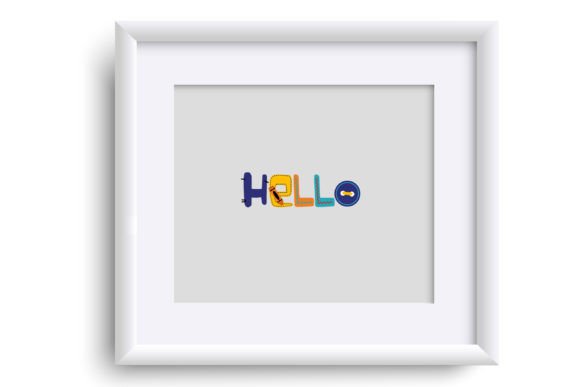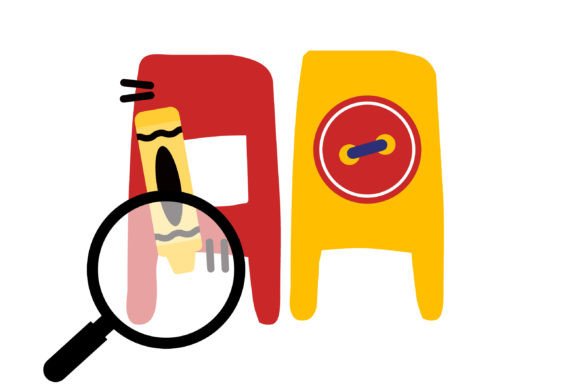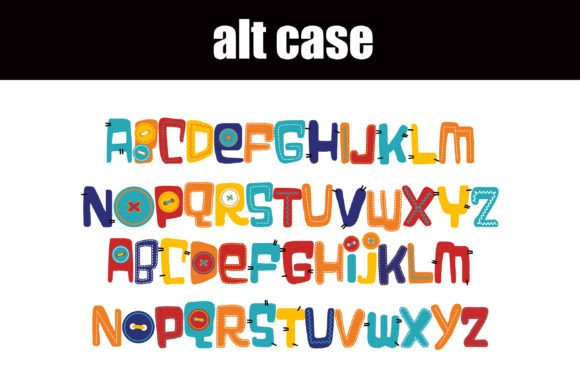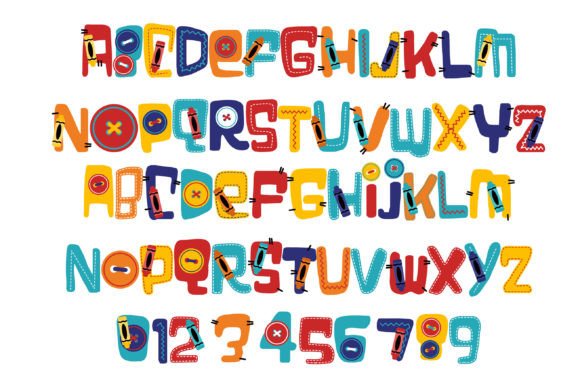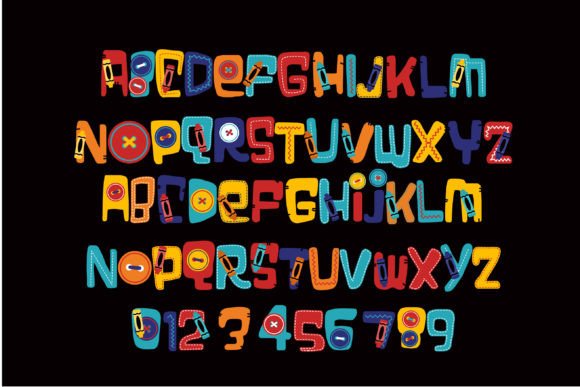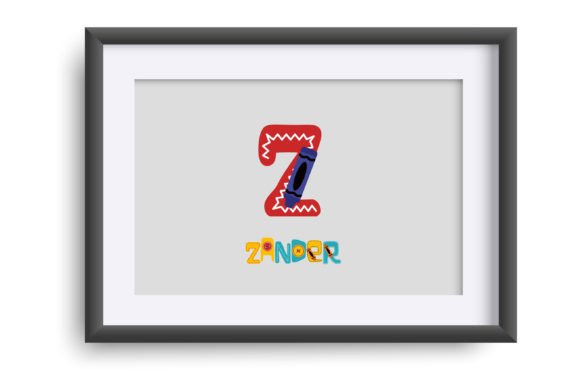
Introduction to Sew Ready 4 School Font
Remember the excitement of rummaging through your crayon box, searching for the perfect shade to bring your creative project to life? As designers, we’re always on the lookout for unique and high-quality design resources to elevate our work. That’s where the Sew Ready 4 School Font comes in – a vibrant, full-color font that’s perfect for adding a playful touch to your titles, displays, and posters.
With its crafty design featuring crayons, buttons, and stitches throughout, this font is sure to bring a smile to the faces of both kids and adults alike. And the best part? It’s easy to use, with an alt case that provides additional colors accessible through your system’s character map. Whether you’re working on a free download or a paid project, the Sew Ready 4 School Font is a valuable addition to any designer’s toolkit.
Key Features of Sew Ready 4 School Font
- Unique Hand-Drawn Design: This font features a distinctive hand-drawn design, perfect for adding a personal touch to your creative project.
- Perfect for Educational Projects: Designed specifically for back-to-school and educational themes, this font is ideal for creating engaging and informative materials.
Honest Review: Sew Ready 4 School Font
I recently stumbled upon the Sew Ready 4 School Font while searching for a fun and playful design resource for a creative project. I was excited to give it a try, and here’s my honest review.
- ✨ The font is super cute and perfect for back-to-school designs, parties, or any project related to education.
- ⚠️ The font is quite limited in terms of character set and may not be suitable for longer text passages.
- ⚠️ Some users may find the font too playful or childish for certain design projects.
Overall, I think the Sew Ready 4 School Font is a great addition to any designer’s collection, especially for those working on creative projects related to education or children. While it has its limitations, it’s a free and fun design resource that can add a touch of personality to any design.
Sew Ready 4 School Font
The Sew Ready 4 School Font is perfect for a variety of creative projects, including:
- School and education-related designs.
- Children’s party and event invitations.
- Teaching and learning resources.